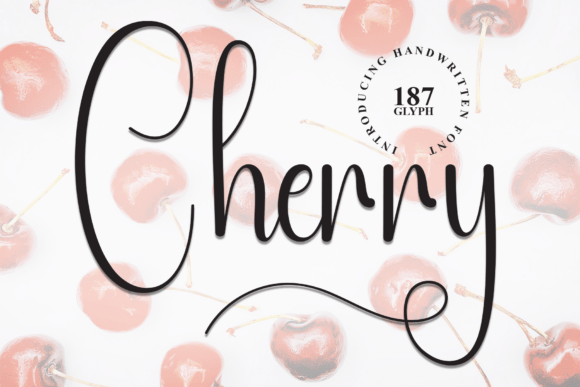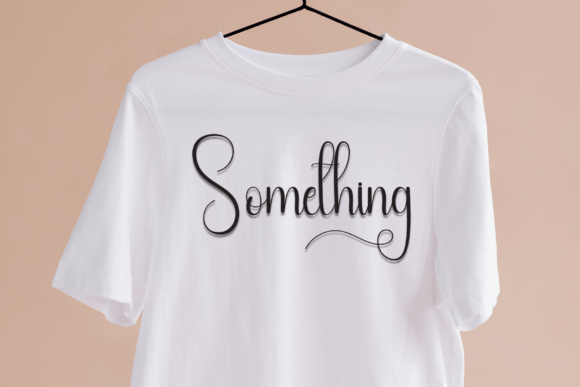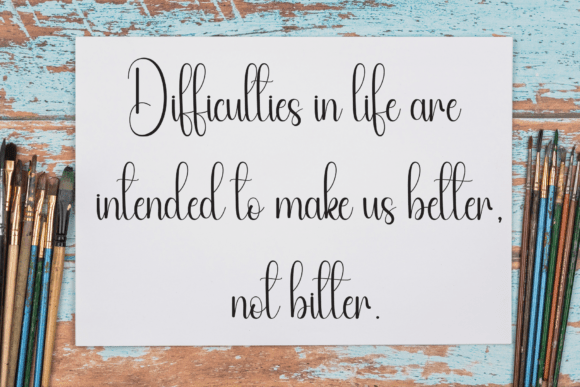
Cherry Font
Cherry is a stylish handwritten script font that combines elegance with a modern flair. Its flowing strokes and organic curves bring warmth and sophistication to any project. Ideal for branding, invitations, and social media, this typeface adds a personal, refined touch with effortless charm.